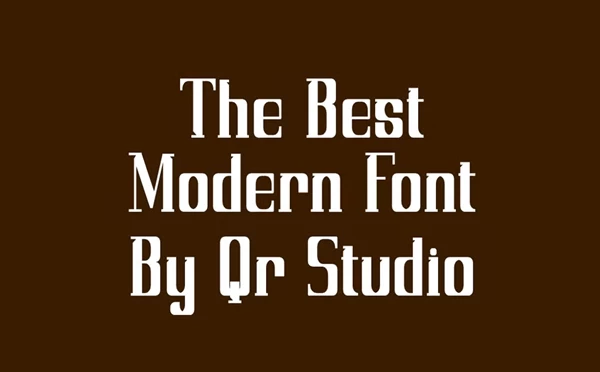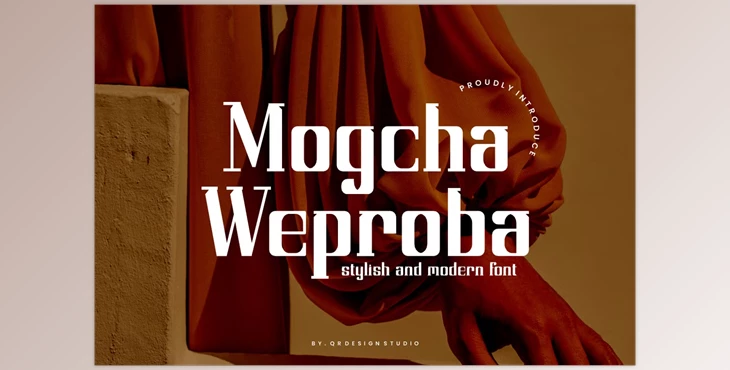
Mogcha Weproba - Serif & Modern Font: Introducing Mogcha Weproba Font, a striking and authentic display font designed to elevate your branding projects with its serif charm. This font is perfect for many applications, including stylish designs, posters, logos, storefronts, and more, making it stand out in any context.
How can we add a modern look to our text?
You can use "Mogcha Weproba - Serif & Modern Font."
With its distinctive character and versatility, Mogcha Weproba Font is your go-to choice for creating memorable designs.